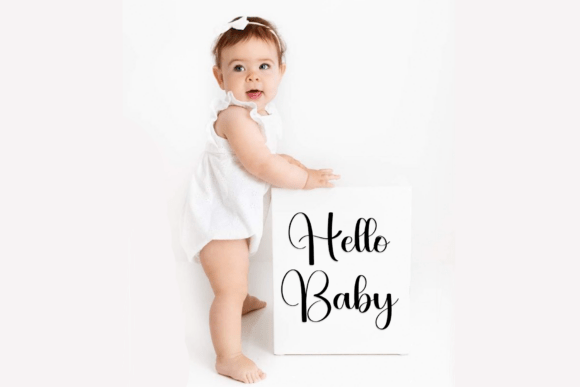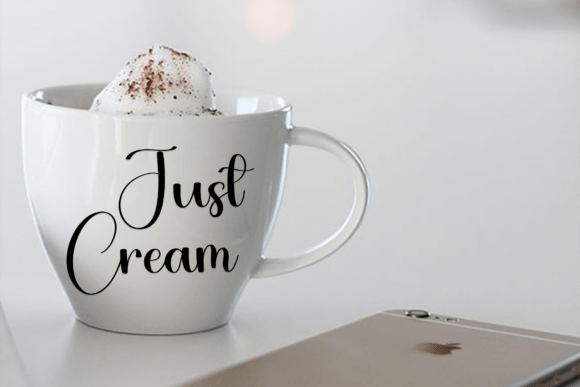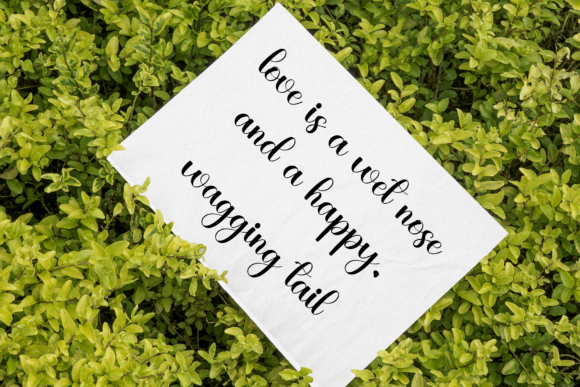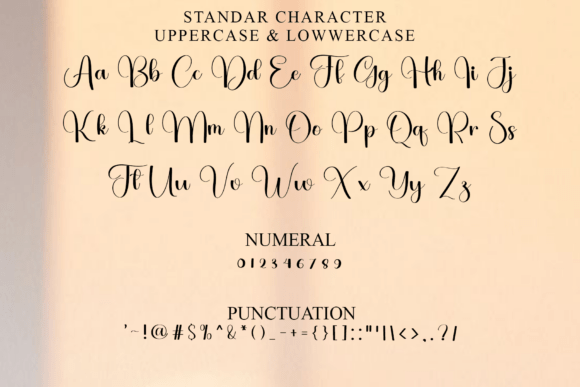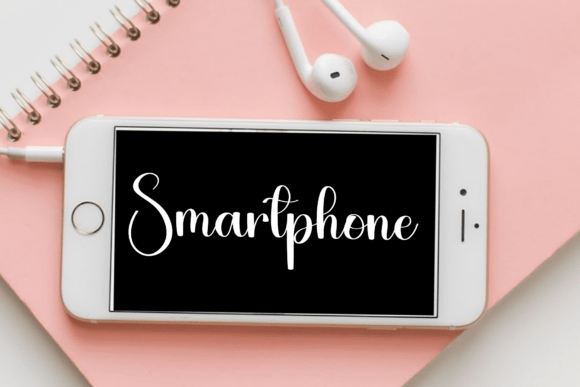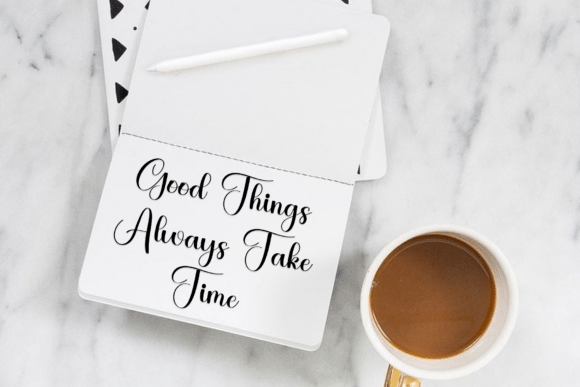
The Perfect Font for Your Heartfelt Creations
Have you ever stumbled upon a font that just speaks to your soul? For designers and crafty enthusiasts, finding the right font can be a game-changer. It’s that moment when the perfect combination of style and meaning comes together, and you know you’ve found your new favorite font. For me, that moment arrived when I discovered the Chasing Hearts Font.
This beautiful and eye-catching font is designed to add a soft, unique touch to your designs. Its distinctive strokes give it a special character, making it meaningful and versatile for future use. Whether you’re working on a design project, crafting a special gift, or simply looking to add a personal touch to your social media posts, the Chasing Hearts Font is the perfect choice.
Key Features of Chasing Hearts Font
- Unique Characteristics: Hand-drawn, cursive font with a romantic and whimsical feel, ideal for wedding invitations, greeting cards, and other creative projects
- Font Style: Includes regular, italic, and bold font styles for added versatility
Designer Review: Chasing Hearts Font
Overall, I have mixed feelings about the Chasing Hearts Font. While it’s a great addition to any project with a romantic or whimsical theme, it’s not without its limitations.
- ✨ Unique and playful: The font has a distinct personality that’s perfect for projects that need a touch of romance or whimsy.
- ✨ Beautiful connections: The font’s connections between letters are often beautiful and add to its charm.
- ✨ Good for short text: Chasing Hearts Font is perfect for short phrases or titles, as it’s easier to read and understand.
- ⚠️ Difficult to read in large quantities: Due to its unique connections and playful nature, the font can become overwhelming when used extensively.
- ⚠️ Limited legibility: At smaller sizes, the font can be difficult to read, making it less suitable for body text.
- ⚠️ Limited font styles: Chasing Hearts Font is available in only a few font styles, which may limit its versatility.
Overall, I’d recommend Chasing Hearts Font for projects that require a touch of romance or whimsy, but use it sparingly and in moderation. It’s perfect for short phrases, titles, or headlines, but not ideal for large blocks of text.
Chasing Hearts Font Practical Application Guide
4. Use the font to create eye-catching headings and titles that add a touch of romance to your presentation or document.
Getting the Most Out of the Font
Use the Chasing Hearts Font in conjunction with soft pastel colors and floral patterns to create a whimsical and romantic design.
Experiment with different font sizes and styles to add emphasis and visual interest to your text.
Combine the font with bold lines and geometric shapes to create a modern and playful design.
The Chasing Hearts Font is perfect for:
Valentine’s Day and wedding invitations
Romantic getaways and honeymoon brochures
What is the recommended font size for using the Chasing Hearts Font?
The recommended font size for the Chasing Hearts Font varies depending on the application and design context. As a general guideline, use font sizes between 12pt and 48pt for body text, and 60pt to 120pt for headings. This will ensure optimal readability and visual appeal.